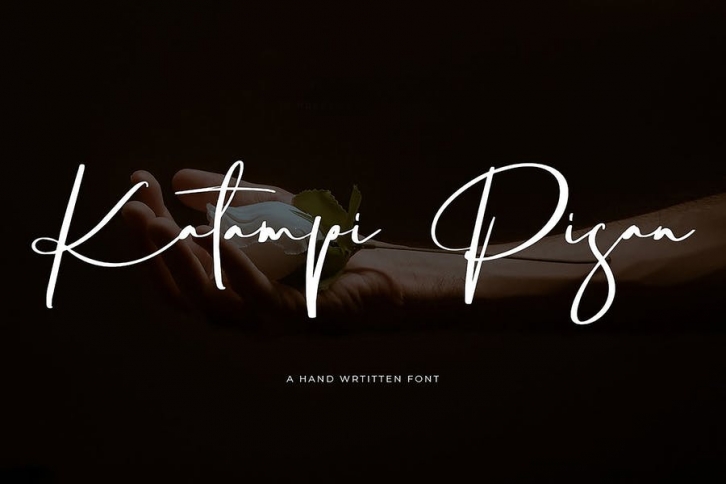
Thanks for checking out Katampi Pisan . is perfect for all your needs, such as a logo, printed quotes, badge, insignia, packaging, headline, poster, greeting card, and wedding invitation, & etc.